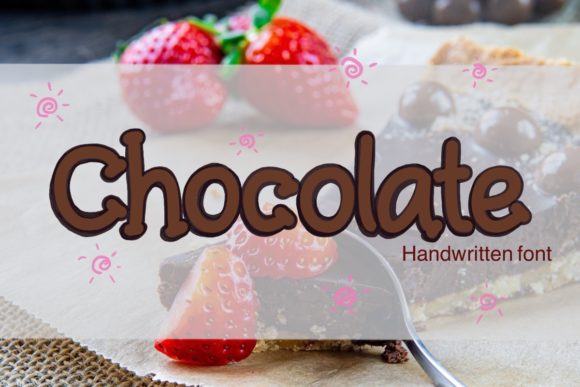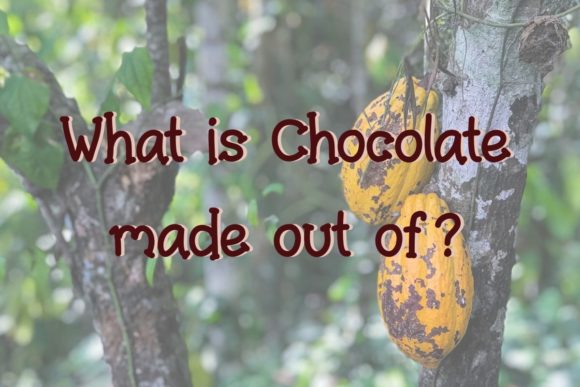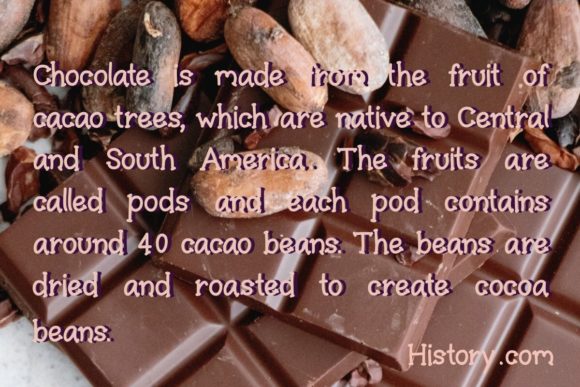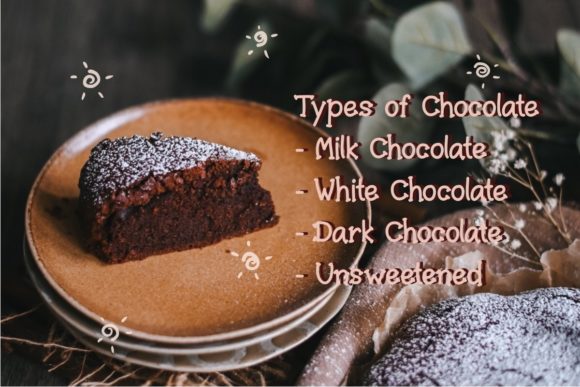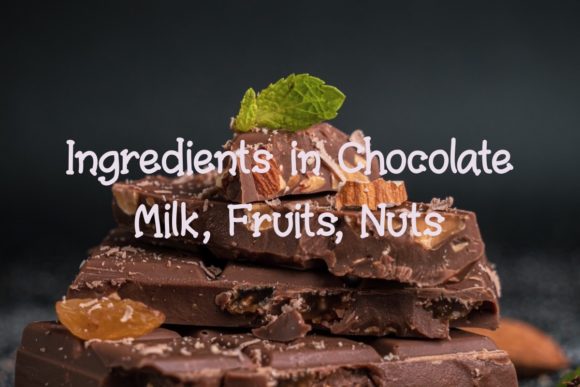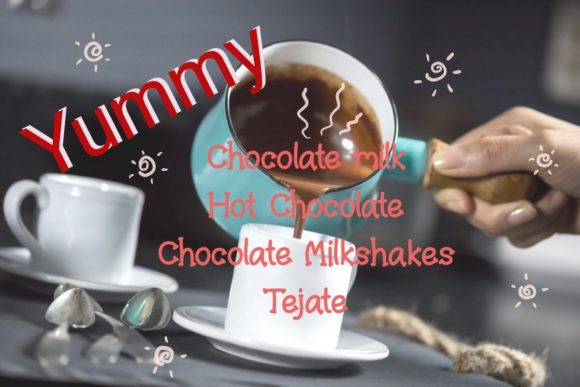
Chocolate Font
About Chocolate Font
Chocolate is a cute and simple handwritten font. It is suitable for logos, branding, wedding invitations, business cards, greeting cards, posters, magazines, social media, planner prints and websites. Add this font to your favorite creative ideas and notice how it makes them come alive.